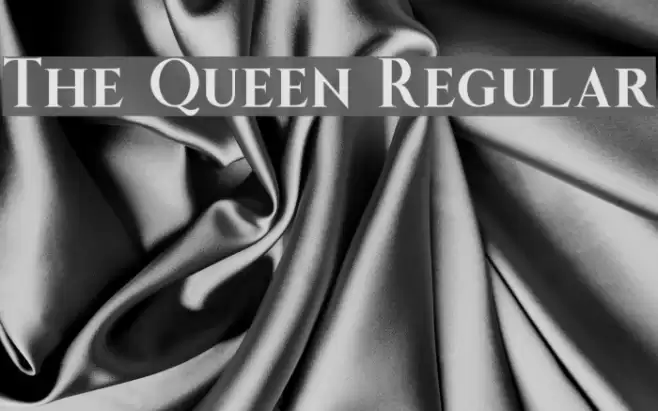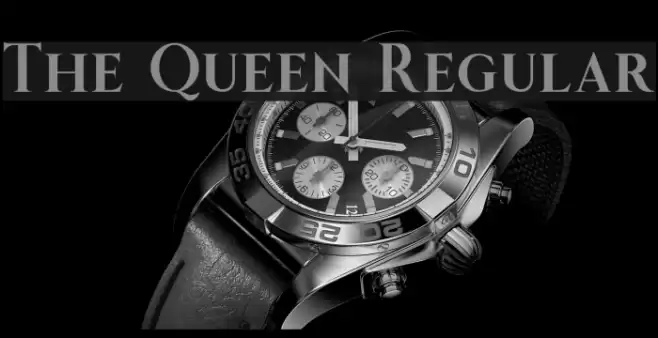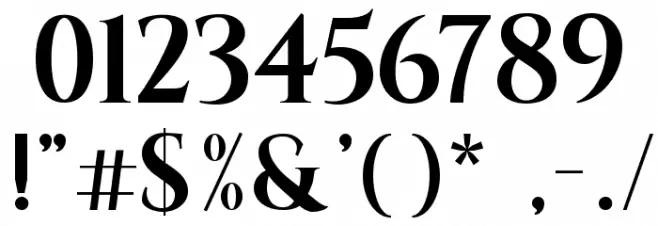
The Queen Regular Font
The Queen Regular Description
This font exudes a classic elegance with its refined serif style. The characters are well-proportioned, featuring sharp serifs and a balanced contrast between thick and thin strokes. The uppercase letters stand tall with a regal presence, while the lowercase letters maintain a harmonious flow. The numerals are clear and distinct, complementing the overall sophisticated appearance. Special characters are crafted with precision, adding to the font's versatility. This typeface is ideal for projects that require a touch of sophistication and timeless appeal.
A classic serif font with elegant, well-proportioned characters and refined serifs from Serif fonts.
- Proposed Projects: Ideal for luxury branding, editorial design, book covers, and formal invitations.
- Overall Style: Classic